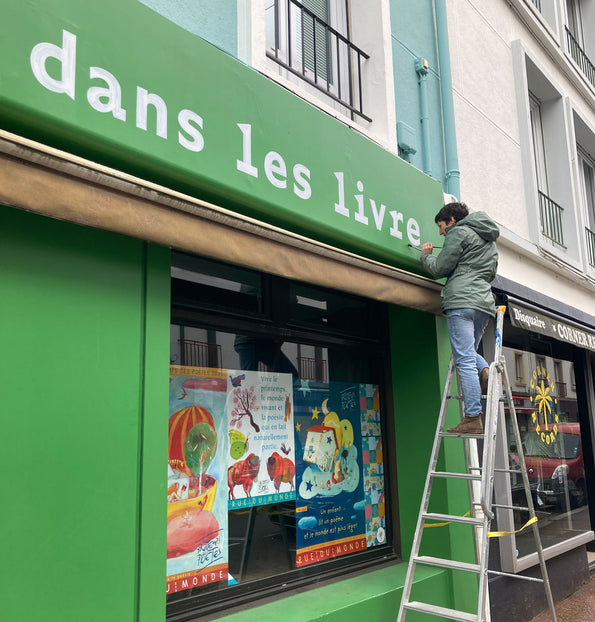
Ocalie
Hublot has a long history. Originally designed as a monospaced type family for the visual identity of the art center La Fenêtre (“The Window”; Hublot meaning “Porthole”), it first stood out through its strong and playful display character.
Ocalie is the next chapter in this story. Still a sans-serif but no longer monospaced, the design has been subtly refined, embracing a delicate balance between sensitivity and mechanics, organic movement and geometric rigor. Expanded and matured, the family now offers 21 cuts, inviting designers to explore its full expressive range.
Sandrine Nugue